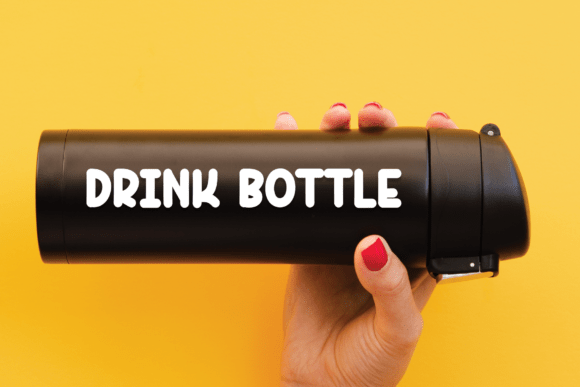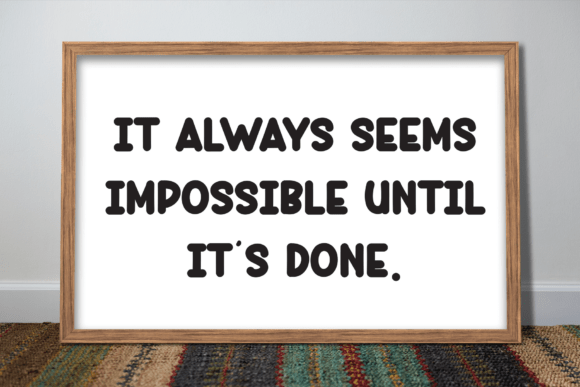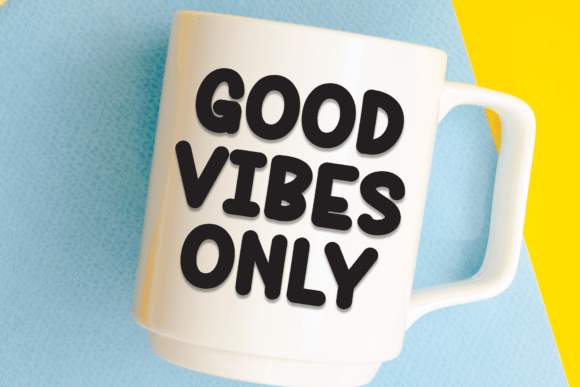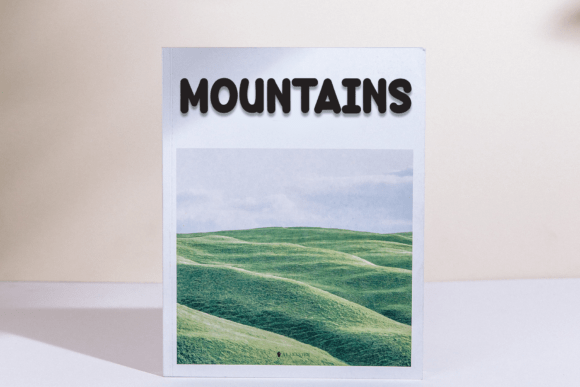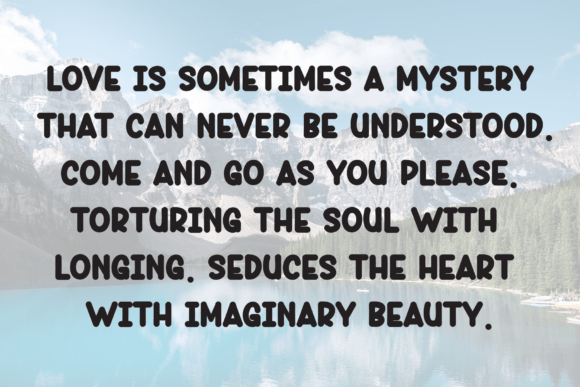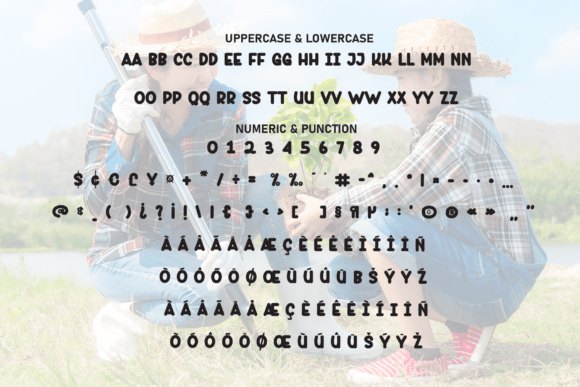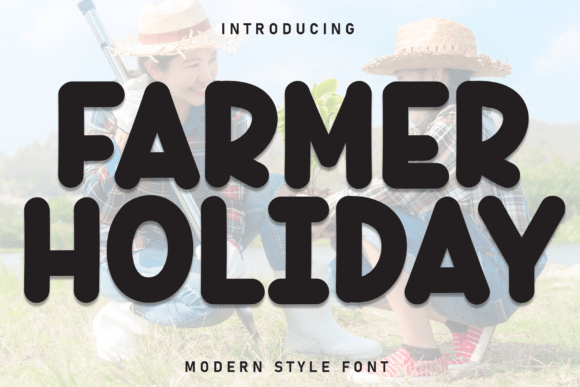
Introducing Farmer Holiday Font: The Perfect Blend of Freshness and Friendliness
In the world of typography, fonts play a crucial role in conveying the tone and personality of a brand or design. For designers and crafters looking for a font that exudes a fresh, friendly vibe, Farmer Holiday Font is an excellent choice. This casual and neat display font is designed to add a touch of approachability and charm to various projects, making it perfect for packaging, posters, social media graphics, and more.
Clean Lines and Relaxed Structure
One of the standout features of Farmer Holiday Font is its clean lines and relaxed structure. The font’s design is characterized by simple, uncomplicated lines that give it a sense of clarity and polish. The relaxed structure, on the other hand, adds a touch of casualness and friendliness, making it perfect for designs that require a approachable tone.
Farmer Holiday Font is a versatile font that can be used in a wide range of design projects. Its fresh and friendly vibe makes it perfect for:
• Packaging: Add a touch of approachability and charm to your product packaging with Farmer Holiday Font.
• Posters: Create eye-catching posters that grab attention with this casual and neat display font.
• Social Media Graphics: Elevate your social media graphics with a font that radiates freshness and friendliness.
Approachable Design with Clarity and Polish
The approachable design of Farmer Holiday Font is one of its most significant advantages. The font’s clean lines and relaxed structure work together to create a design that is both charming and clear. This makes it perfect for designs that require a friendly tone without sacrificing polish and sophistication.
Why Choose Farmer Holiday Font?
With so many fonts available, why choose Farmer Holiday Font? Here are a few reasons:
• Unique Vibe: Farmer Holiday Font offers a fresh and friendly vibe that sets it apart from other fonts.
• Versatility: This font can be used in a wide range of design projects, from packaging to social media graphics.
• Easy to Read: The clean lines and relaxed structure of Farmer Holiday Font make it easy to read, even at smaller sizes.
Tips for Using Farmer Holiday Font
To get the most out of Farmer Holiday Font, here are a few tips:
• Pair with Other Fonts: Experiment with pairing Farmer Holiday Font with other fonts to create a unique and interesting design.
• Use in Headlines: Take advantage of the font’s bold and eye-catching design by using it in headlines and titles.
• Experiment with Colors: Try out different colors and color combinations to see how they affect the overall look and feel of the font.
Farmer Holiday Font is a casual and neat display font that offers a fresh, friendly vibe perfect for a wide range of design projects. Its clean lines, relaxed structure, and approachable design make it an excellent choice for designers and crafters looking to add charm and clarity to their work. With its versatility, ease of use, and unique vibe, Farmer Holiday Font is sure to become a favorite in any designer’s toolkit.
Whether you’re working on packaging, posters, social media graphics, or any other design project, Farmer Holiday Font is definitely worth considering. So why not give it a try and see how it can elevate your designs?